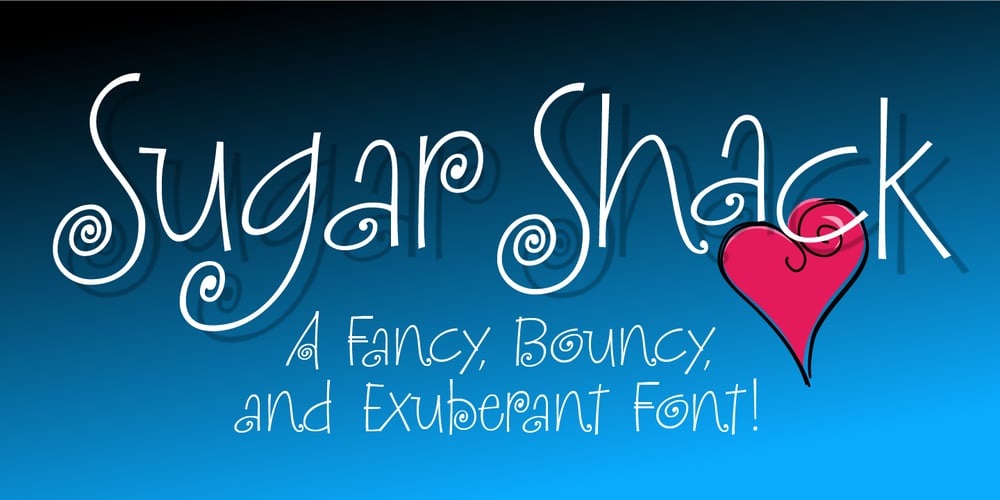
Sugar Shack
Sugar Shack font
Sugar Shack Font Family was designed by published by BA Graphics. Sugar Shack contains 1 styles and family package options. A cool looking bouncy font, with its unique characters, you can actually mix caps and lowercase letters in the same word. Sugar Shack allows you to be as creative as you want, it has its own designed animation built into the font. Experiment with the characters and you will be quite satisfied.